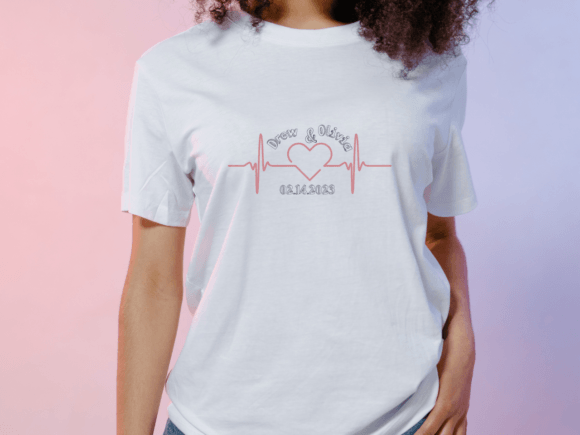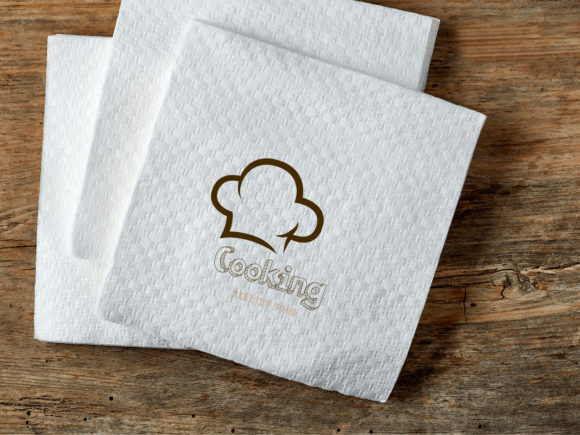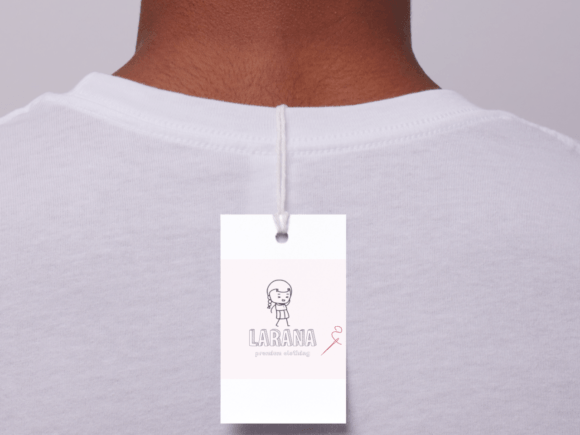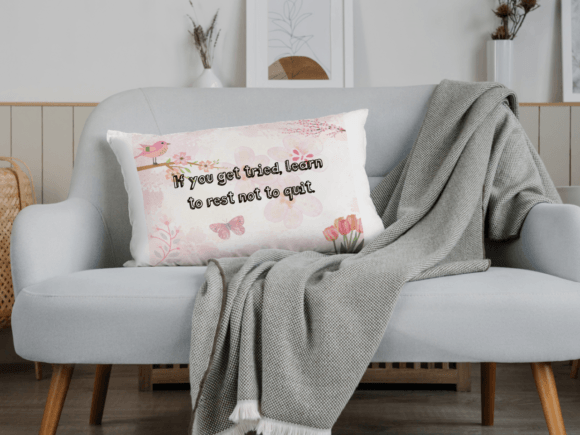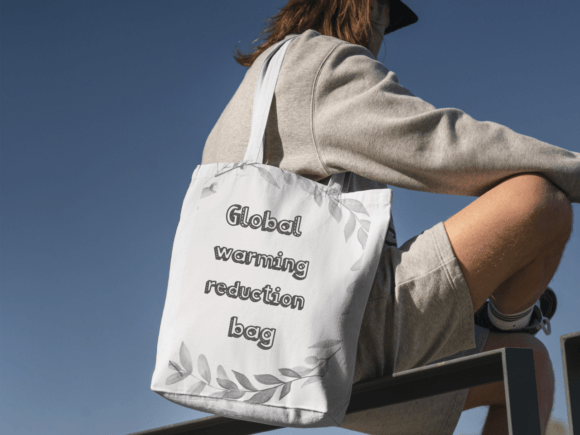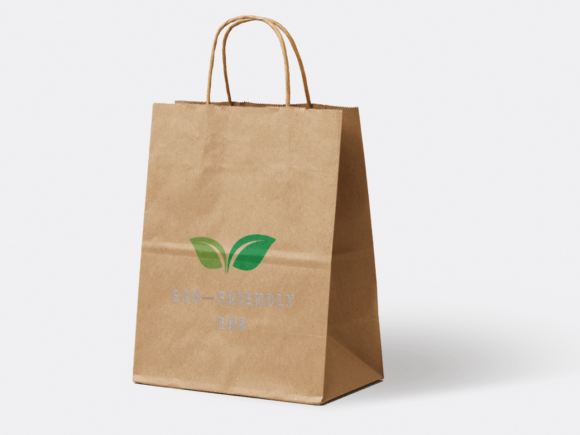
Introduction to Melvint Font Font
Fonts play a crucial role in design, and the Melvint Font font is a typeface that brings both character and versatility to any project. Whether you’re working on a branding project, a website, or a print design, the Melvint Font font offers a unique style that can elevate your work.
Melvint is a cute and quirky slab serif font.
It will add an incredibly joyful touch to your designs Add this beautiful display font to each of your creative ideas and notice how it makes them stand out.
Key Features of Melvint Font Font
Why Choose Melvint Font Font?
The Melvint Font font is more than just a typeface – it’s a design tool that helps you communicate your message with style and clarity. Its unique character set and versatile design make it suitable for a wide range of applications, from elegant invitations to bold headlines.
With its carefully crafted letterforms and balanced proportions, the Melvint Font font ensures readability and visual appeal across all mediums.
What makes Melvint Font font special?
The Melvint Font font stands out with its unique design, exceptional readability, and versatility across various design applications.